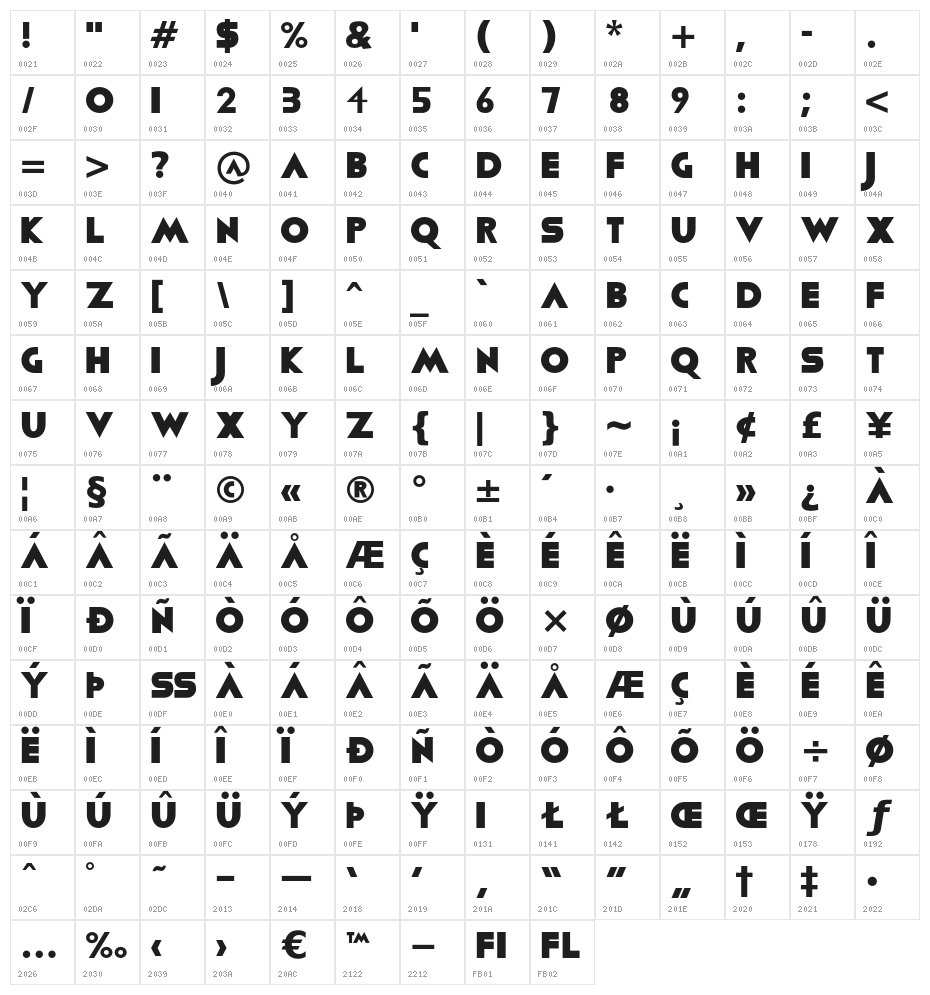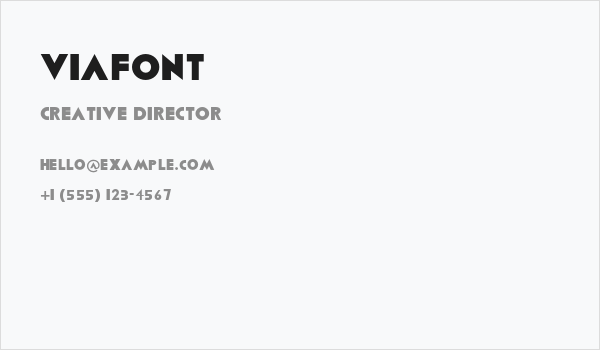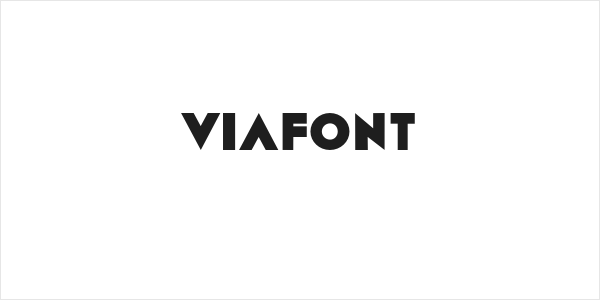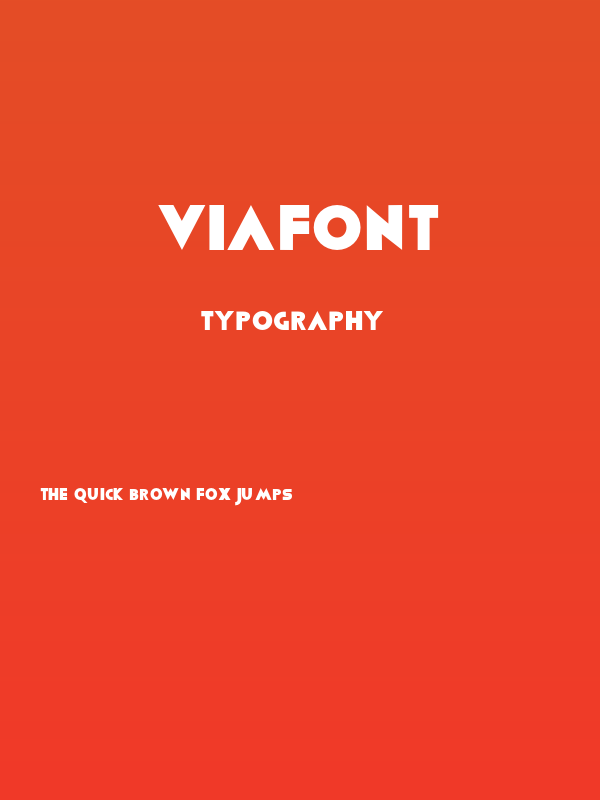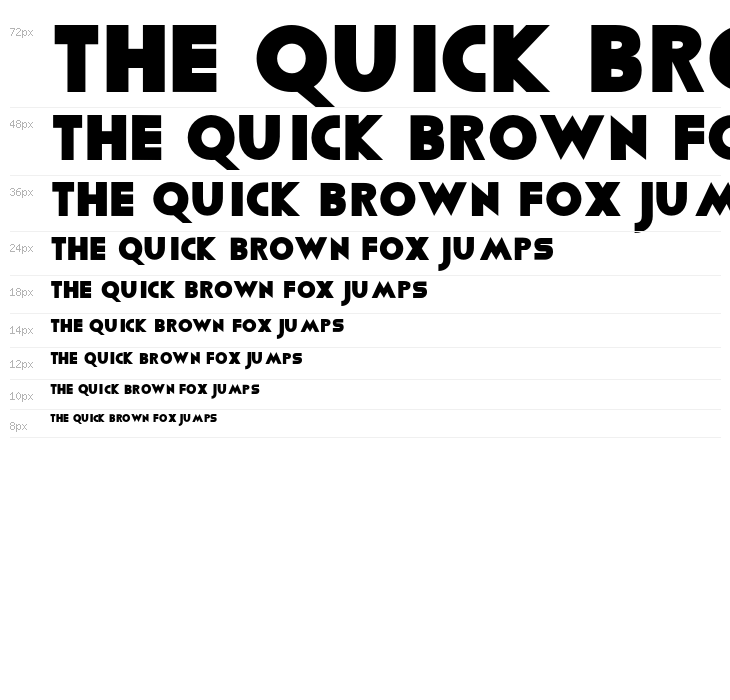
Viafont Font
Viafont Description
This font features bold, geometric shapes with a strong presence. The uppercase letters are characterized by sharp angles and a uniform stroke width, giving them a modern and assertive look. The lowercase letters maintain the same boldness, ensuring consistency across the typeface. Numbers are equally robust, with a clear and straightforward design that enhances readability. Special characters are designed to match the overall bold and geometric style, making them suitable for a variety of uses. The font's design is both striking and versatile, making it ideal for projects that require a strong visual impact.
| Proposed Projects | Ideal for branding, headlines, posters, and any design requiring a strong visual impact. |